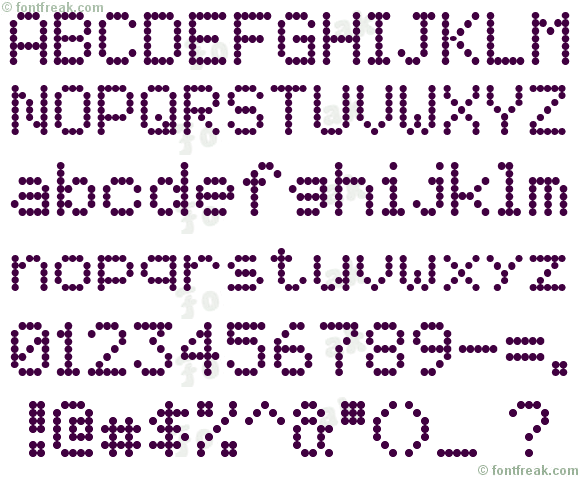
5by7
5by7-Bold
The 5by7 font, designed by Peter Wiegel, is a distinctive display typeface that combines modern aesthetics with a playful geometric structure. This bold font falls under the decorative category, characterized by its unique dot-based design that creates a visually striking appearance. The stroke weight is consistent throughout, lending a sense of uniformity, while the spacing between characters is balanced, ensuring legibility even at larger sizes. The dot motif used in the characters adds a whimsical touch, making it ideal for projects that require a creative flair.
This font is particularly well-suited for a variety of applications. It shines in poster designs, where its boldness can grab attention from a distance. Additionally, the 5by7 font is a great choice for branding elements, such as logos and signage, where a modern yet playful look is desired. Its unique style also makes it fitting for children’s products, like storybooks or educational materials, as well as event invitations, especially for casual gatherings or parties. Graphic designers and small business owners will find this typeface helpful in creating memorable marketing materials that stand out.
What sets the 5by7 font apart is its ability to blend fun with functionality. Its distinctive look captures attention while remaining versatile enough to be used across various media. For those in search of a creative typeface, the 5by7 font free download offers an opportunity to elevate design projects with its bold and playful character.